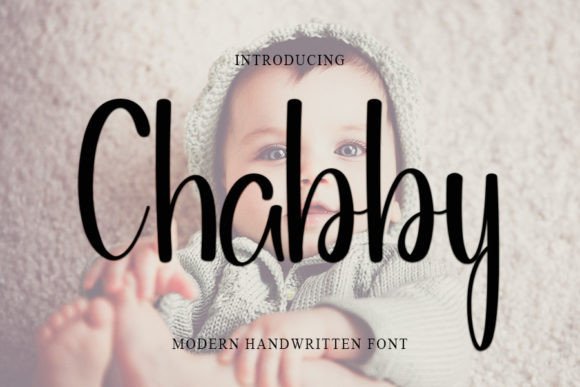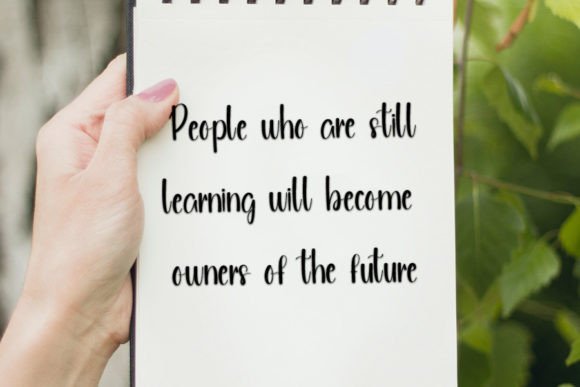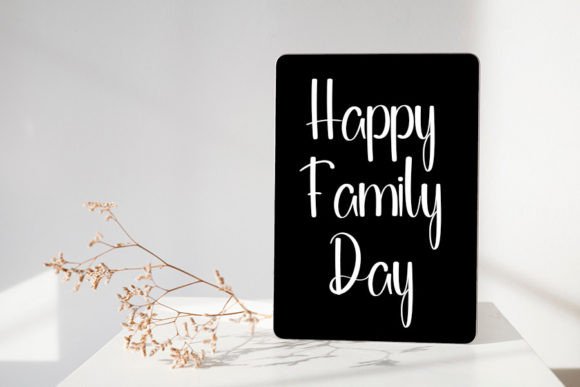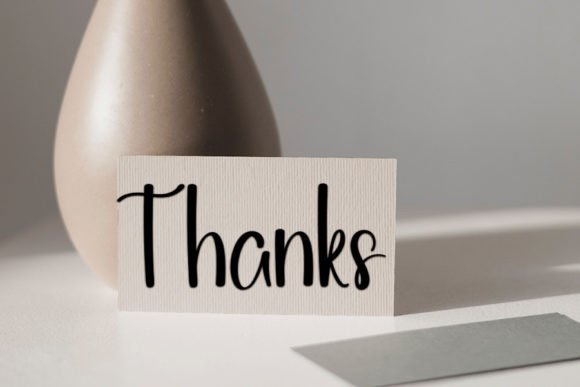
Chabby Font
About Chabby Font
Chabby is a delightful and visually appealing handwritten font, distinguished by its elegant touch, making it an ideal choice for a wide array of creative projects. Allow yourself to be enamored by its exceptionally unique and timeless style, and leverage its charm to craft designs that are truly spectacular!
This font is more than just a typographic choice; it’s a design asset that brings a sense of neatness and beauty to your favorite projects. The handwritten quality adds a personal and human touch, making Chabby perfect for a variety of applications, from invitations to branding and beyond.
Immerse yourself in the charm of Chabby as its distinct features unfold in each stroke. The graceful curves and thoughtful design elements contribute to an overall aesthetic that is both captivating and versatile. It adapts effortlessly to different design contexts, ensuring that your creations stand out with a touch of sophistication.
Chabby’s timeless style ensures that your designs remain relevant and visually appealing across various trends and preferences. As you explore its potential, you’ll discover the font’s ability to enhance the overall artistic expression of your work. It becomes a key element in conveying emotions and messages with finesse.
In summary, Chabby is not just a font; it’s a creative tool that elevates your design endeavors. Let yourself fall in love with its elegance and individuality, and watch as it transforms your projects into visually stunning masterpieces. Embrace the distinct and timeless style of Chabby as you embark on a journey of creating designs that leave a lasting impression.